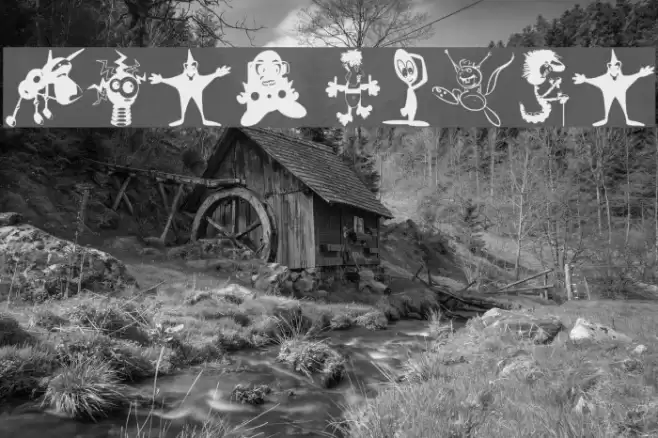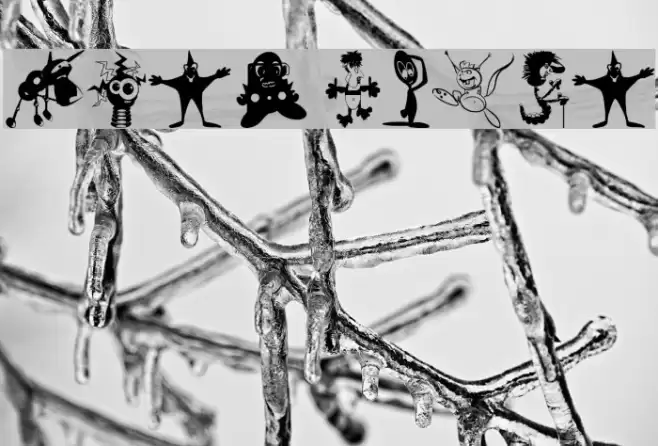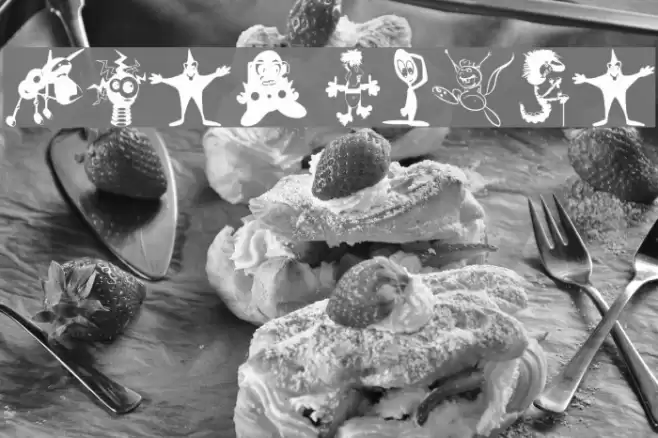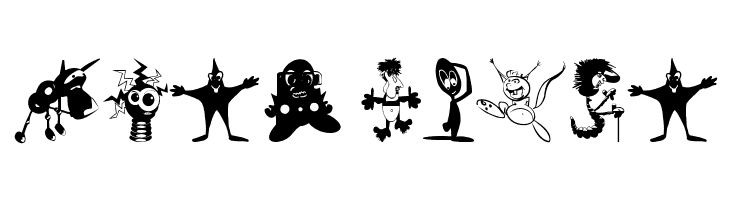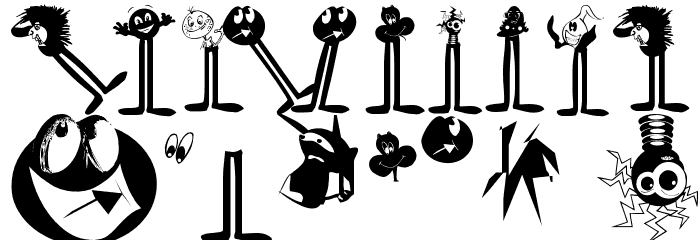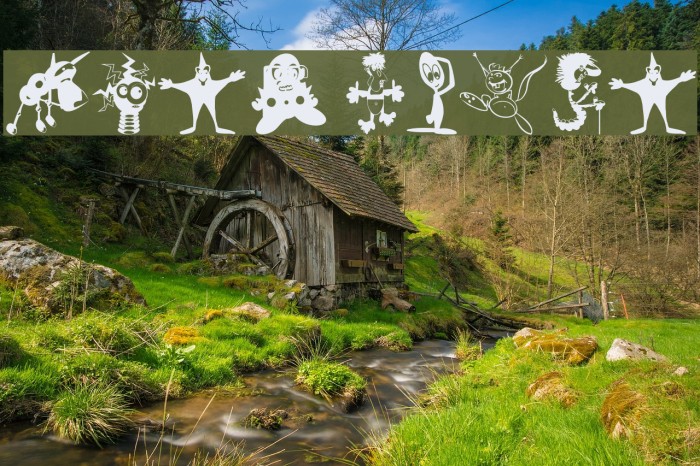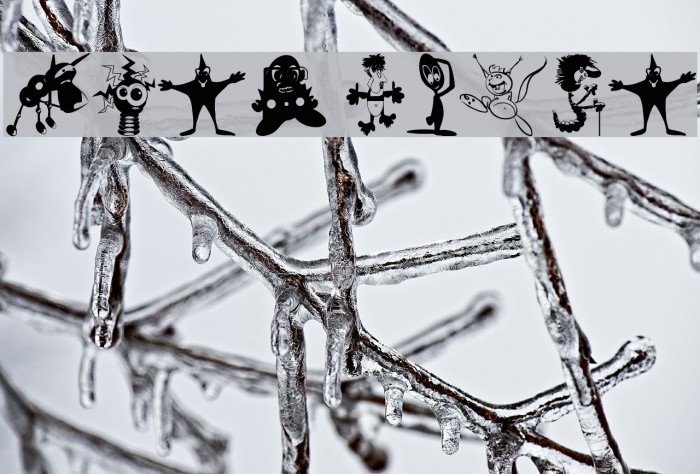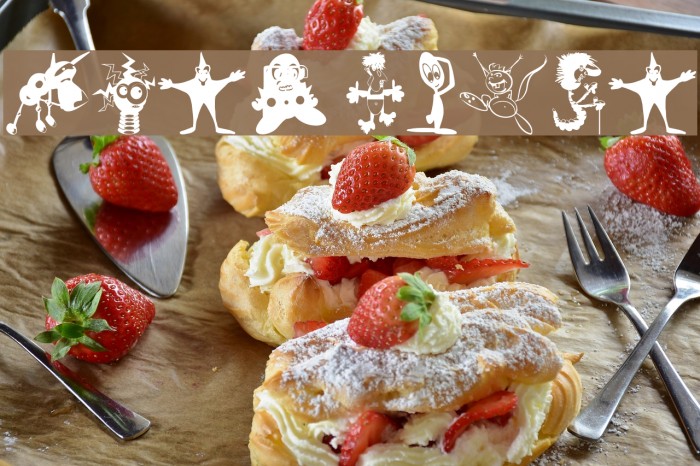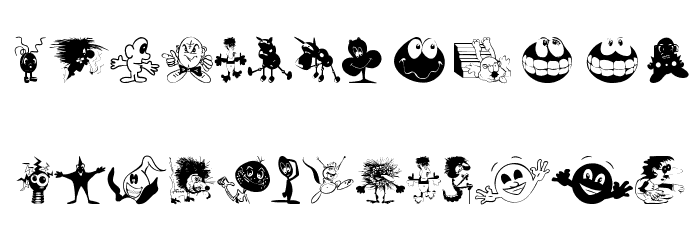
GnomesTwo Font
GnomesTwo Description
A whimsical and playful collection of cartoonish gnome-like characters, each glyph represented by a unique, expressive illustration rather than traditional letterforms. The style is highly decorative, with exaggerated features, bold outlines, and a hand-drawn, comic-inspired aesthetic.
A quirky, cartoon character-based decorative font from Uncategorized fonts.
- Proposed Projects: Children's books, party invitations, comic strips, playful branding, posters, greeting cards.
- Overall Style: Decorative, Playful, Whimsical
- Use Case: Logos, Headlines, Posters, Children's materials